Welcome to our collection of favorite Mid Century style fonts! These fonts showcase all the bold, fun design elements typical of typefaces from the 1940s, 50s, and 60s. Elegant brush and monoline scripts and chunky off-kilter display fonts set the tone for stylish vintage wow-worthy projects!
This is a collection of both cutting and writing fonts. The fonts you see here are ALL tested and used, by us, for real projects. The pictures you see here are photos of lettering on white cardstock, either cut from Cricut Value Vinyl or written using a Fine Point pen. We included a sample height measurement on each photo so you know what the fonts look like at that size.
Serif
These Mid Century serif fonts immediately evoke everything cool and fun about this era of typefaces. Think Vegas-style signage, vintage ads, old cartoons, and Atomic Age everything!
We often pair these with cursive fonts, or even throw in a sans serif like Sassy Sway. Mid Century designs look great with more than one font in the mix, but a swingin’ serif is a must!
Sans Serif
Sans serif fonts aren’t as common in Mid Century designs, but this is the category where you see some famous fonts, like Grinched or Mouse Memoirs.
- Twist (Creative Fabrica)
Script
Like the serif fonts, script typefaces do a lot of heavy lifting in Mid Century design. We rarely create a vintage project without one! These fonts capture all kinds of vibes, whether you’re looking for car culture cool, casual elegance, or something fun and energetic.
Some of these scripts are a little on the thin side for cutting (Clicker Script, Honey Script, Sacramento, Stalemate, The Hills), but they cut well out of Value Vinyl with a minimum 0.6″ line height. These particular fonts also work well as writing fonts – see the next section.
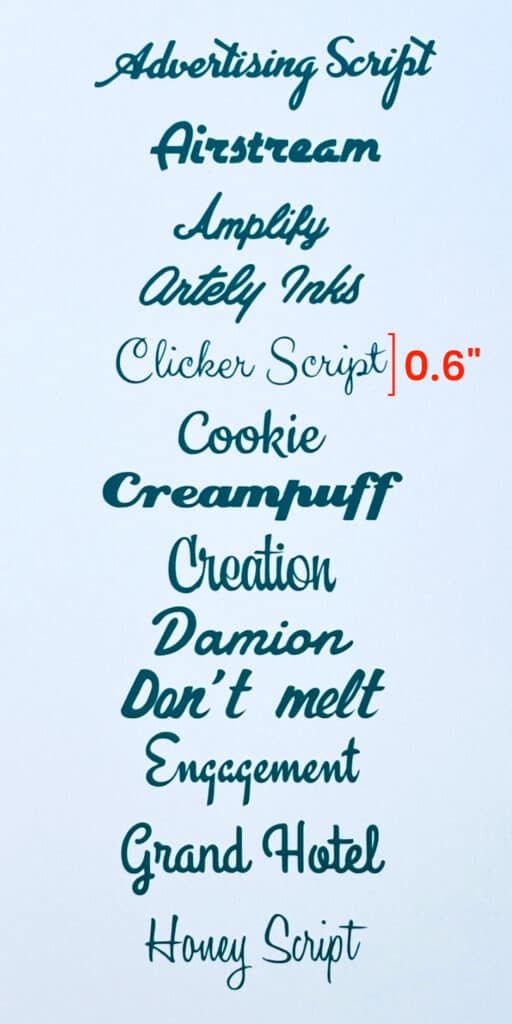
- Advertising Script (personal use only)
- Airstream (personal use only)
- Amplify (personal use only)
- Artely Inks (personal use only)
- Clicker Script (free for commercial use)
- Cookie (free for commercial use)
- Creampuff (free for commercial use)
- Creation (personal use only)
- Damion (free for commercial use)
- Don’t Melt (personal use only)
- Engagement (free for commercial use)
- Grand Hotel (free for commercial use)
- Honey Script (free for commercial use)
- Mr Bedfort (free for commercial use)
- Quigley Wiggly (free for commercial use)
- Remachine Script (personal use only)
- Rickles (personal use only)
- Rochester (personal use only)
- Rocket Script (personal use only)
- Sacramento (free for commercial use)
- Stalemate (free for commercial use)
- Style Script (free for commercial use)
- Swanky Mojo (Creative Fabrica)
- The Hills (personal use only)
Fonts to write with an inset, or Print & Cut
We often use these fonts for cards where we want to include a sentiment written in pen. Most of these require an inset (negative offset) to fill them in so they look like a solid line, but you can also use these for Print & Cut sentiments.
These fonts were written with a 0.4mm (Fine Point) Cricut pen on cardstock, and we’ve indicated how many insets we used for each writing sample at the line height given.
- Advertising Script Monoline (personal use only)
- line height 1″
- no inset
- Clicker Script (free for commercial use)
- line height 0.75″
- 3 x -0.07″ offsets
- Honey Script (free for commercial use)
- line height 1″
- 4 x -0.07″ offsets
- HFF Light Petals (free for commercial use)
- line height 0.75″
- 1 x -0.07″ offsets
- Rocket Script (personal use only)
- line height 0.8″
- 3 x -0.07″ offsets
- Stalemate (free for commercial use)
- line height 0.75″
- 2 x -0.07″ offsets
- Sacramento (free for commercial use)
- line height 0.6″
- 2 x -0.07″ offsets
- The Hills (personal use only)
- line height 0.97″
- 3 x -0.07″ offsets
Mid Century designs of all kinds, including fonts, have aged spectacularly – there’s a reason why modern designers have continued to revisit these styles. We hope you enjoy these timeless classics as much as we do!